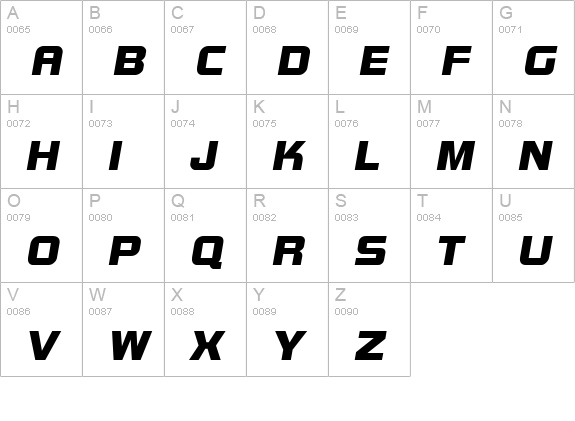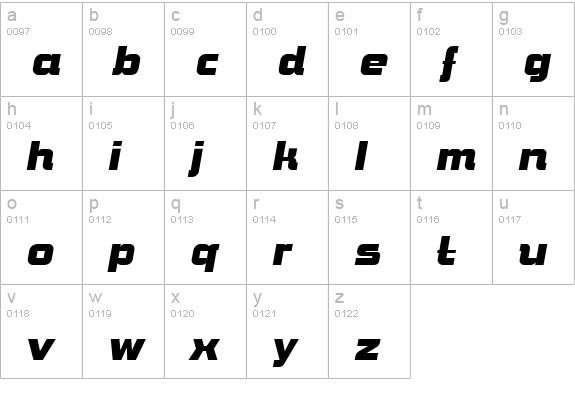
B790-Deco-Italic Font Details
B790-Deco-Italic is a distinctive, italic variant in the B790 typeface family \xE2\x80\x94 well suited to design and typography projects.
The B790-Deco-Italic font is a stylish and artistic typeface that exudes elegance and sophistication. Its unique italicized design adds a touch of flair to any text, making it perfect for creative projects, branding, and decorative purposes. With its sleek lines and decorative elements, this font is sure to make a statement and capture the attention of viewers. What makes the B790-Deco-Italic font even more appealing is that it is available for free download at FontsMarket.com. This means that you can easily access this stunning font and use it in your designs without any cost. Whether you are a designer, artist, or enthusiast looking to enhance your projects with a touch of class, the B790-Deco-Italic font is the perfect choice. Download it today and let your creativity shine with this exquisite typeface.